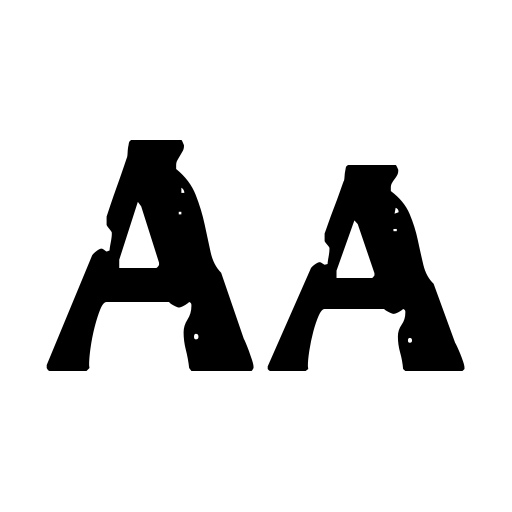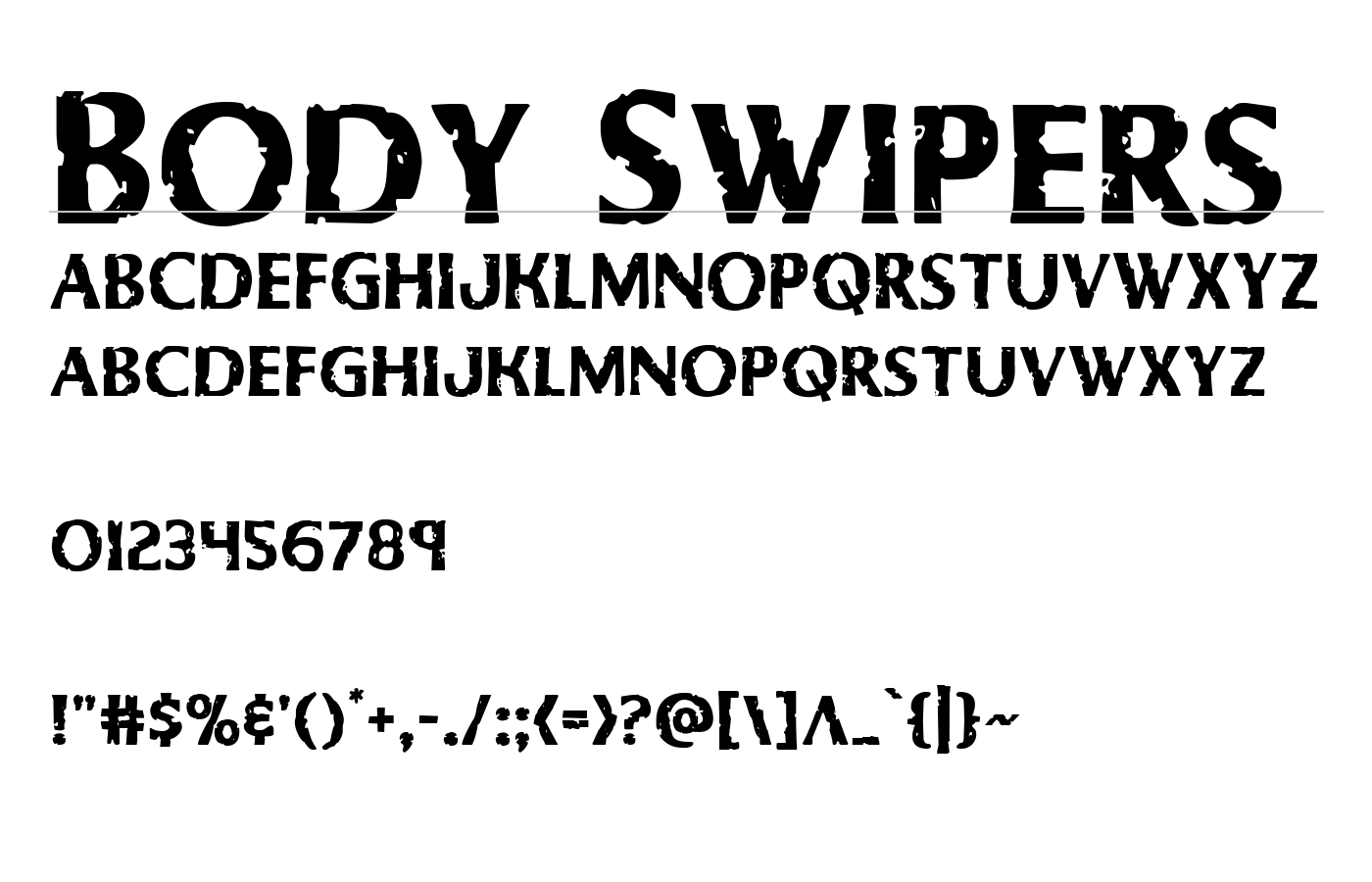
Body Swipers is a bold, distressed slab serif font with a rugged texture that gives it a worn, gritty appearance. Its strong, blocky shapes combined with irregular edges make it perfect for striking headlines, posters, or branding that seeks a bold, edgy, and slightly vintage vibe. This font works well for designs needing a tough, rebellious personality, ideal for creative projects and attention-grabbing display use.
Body Swipers Font
About Body Swipers Font
| Font family | Body Swipers Font |